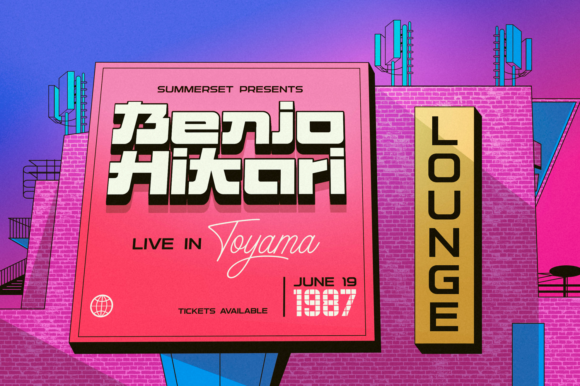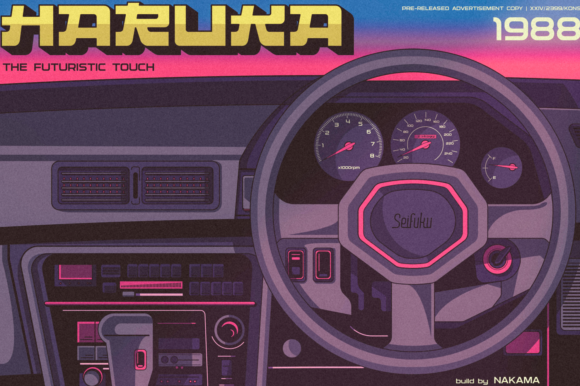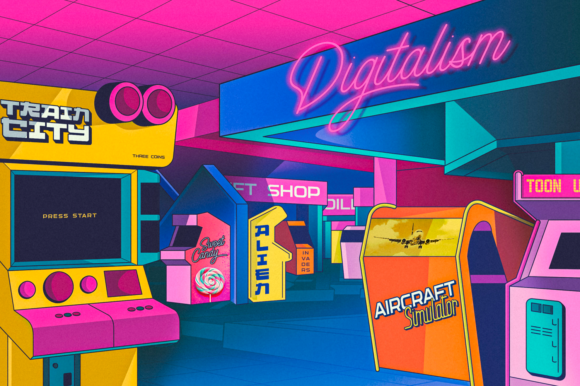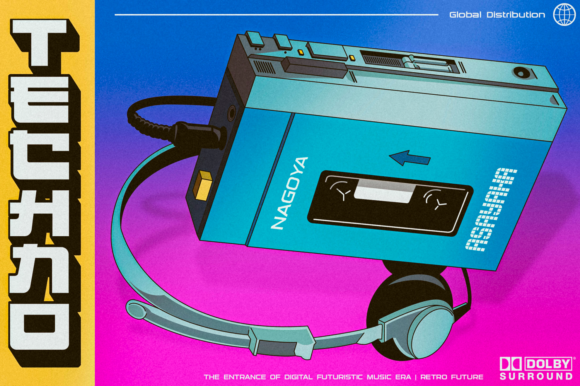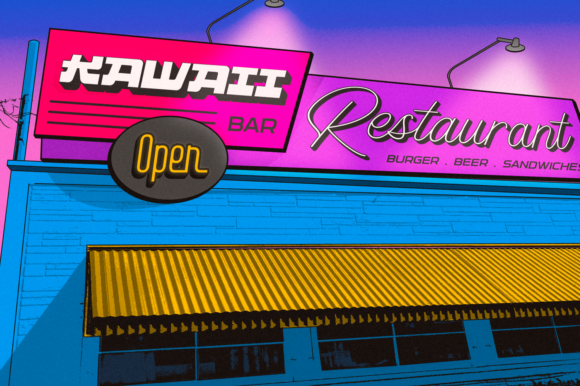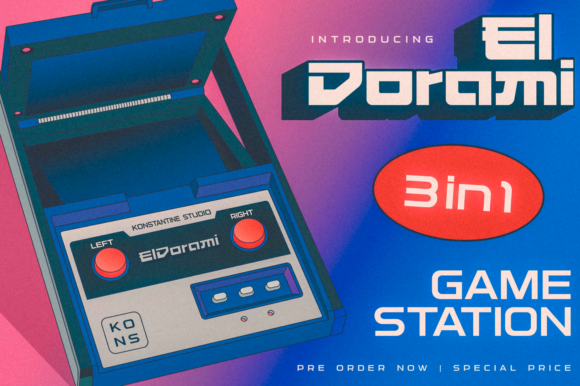
Introduction to Citypop Font
You’ve just spent hours perfecting your design, from the intricate details to the subtle color palette. But, it’s missing that one final touch – a font that brings it all together. And, that’s where the Citypop Font comes in, a game-changing design resource that adds a touch of elegance and sophistication to any creative project.
This adaptable family font is more than just a pretty face; it’s a valuable asset for designers looking to elevate their work. With its high quality and versatility, the Citypop Font is perfect for crafting cards, branding, labels, and much more. Plus, with a transparent background, it’s easy to integrate into any design without overpowering the other elements.
Key Features of Citypop Font
- High-quality design resource for creative projects, ideal for designers and artists looking for a unique aesthetic.
- Features a transparent background, allowing for seamless integration into various design elements and backgrounds.
- Includes a range of characters, including uppercase and lowercase letters, numbers, and symbols, making it a versatile font for creative projects.
- Designed with a retro-futuristic feel, inspired by the City Pop movement of the 1980s, giving it a distinctive and nostalgic look.
Honest Review: Citypop Font
I recently had the opportunity to work with the Citypop Font, and I must say it’s been a game-changer for my design projects. As a designer, I’m always on the lookout for high-quality resources that can elevate my work and help me bring my creative vision to life.
Here are some things that work well with the Citypop Font:
- ✨ Elegant and modern aesthetic that’s perfect for creative projects.
- ✨ Highly customizable, allowing me to adjust the font to fit my specific design needs.
- ⚠️ The transparent background can be a bit tricky to work with, especially when combining it with other design elements.
- ⚠️ The font may not be suitable for large blocks of text, as it can become overwhelming.
Overall, I’m really impressed with the Citypop Font. It’s a fantastic addition to any design resource library, and I’ve already started using it for a number of my current projects. If you’re looking for a high-quality, free font that can help take your design to the next level, I’d definitely recommend giving the Citypop Font a try.
Tips for Getting the Most Out of Citypop Font
Use Citypop Font in combination with other design elements, such as icons and graphics, to create a unique and eye-catching design. Experiment with different font sizes and colors to add visual interest to your design. The Citypop Font is a versatile design resource that can be used in a variety of creative projects.
The Citypop Font is commonly used in graphic design, branding, and digital art. It’s perfect for creating high-quality graphics, logos, and typography for creative projects. The transparent background and high-quality design of the Citypop Font make it a great resource for designers and artists.